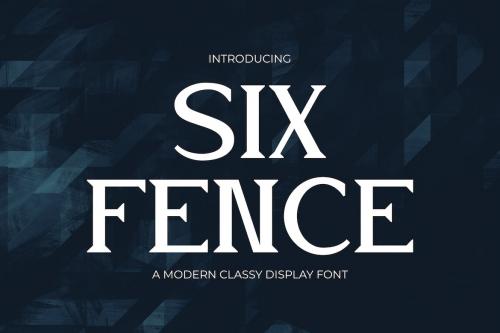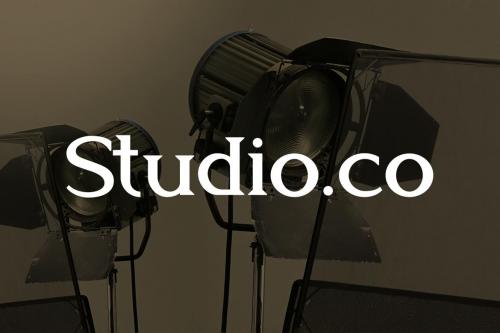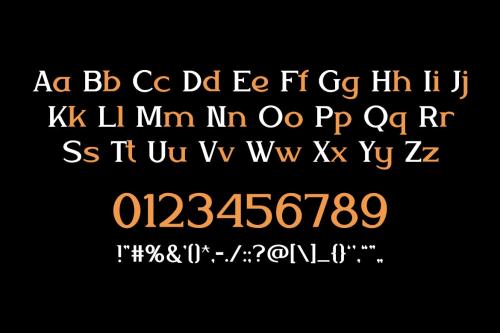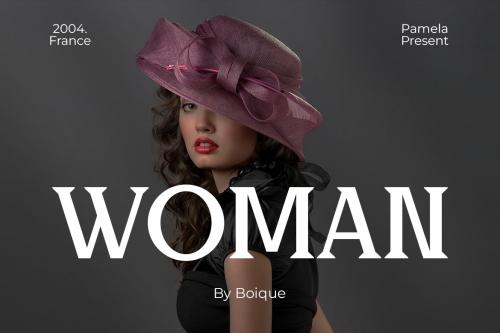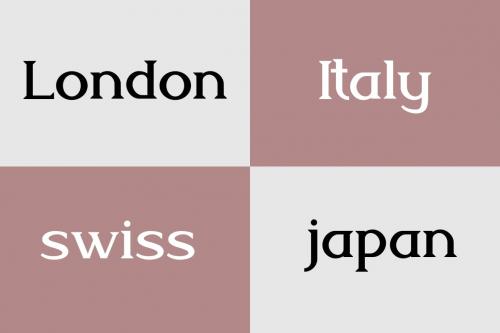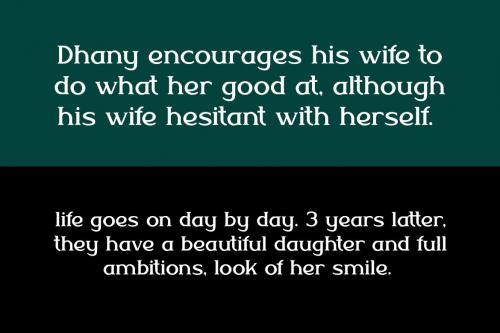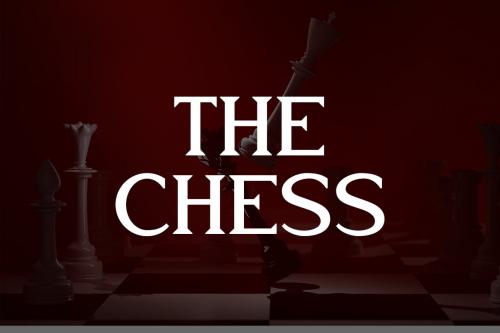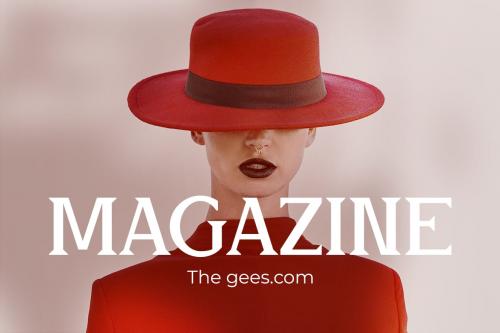
现代优雅衬线字体 Six Fence
Whether you're crafting editorial content, magazine headlines, advertisements, quotes, posters, branding materials, wedding quotes, or cover albums, Six Fence is here to elevate your designs.
The sleek and elegant appearance of this font adds a contemporary edge to your work, making it perfect for advertising that demands attention or magazine headlines that instantly captivate readers. Use it to infuse your quotes with a sense of modern sophistication or create posters that stand out in any crowd.
Six Fence's timeless elegance is equally well-suited to branding, where it can define a new level of style and refinement. For wedding quotes that are both stylish and memorable or cover albums that capture the essence of your art, this font is the perfect choice.
With Six Fence, you have a versatile tool that enhances your designs with a touch of contemporary class. Its friendly, easy-to-read style ensures that your message is conveyed with clarity and charm. Embrace the beauty of modern sophistication with Six Fence and watch your designs come to life in a whole new way.